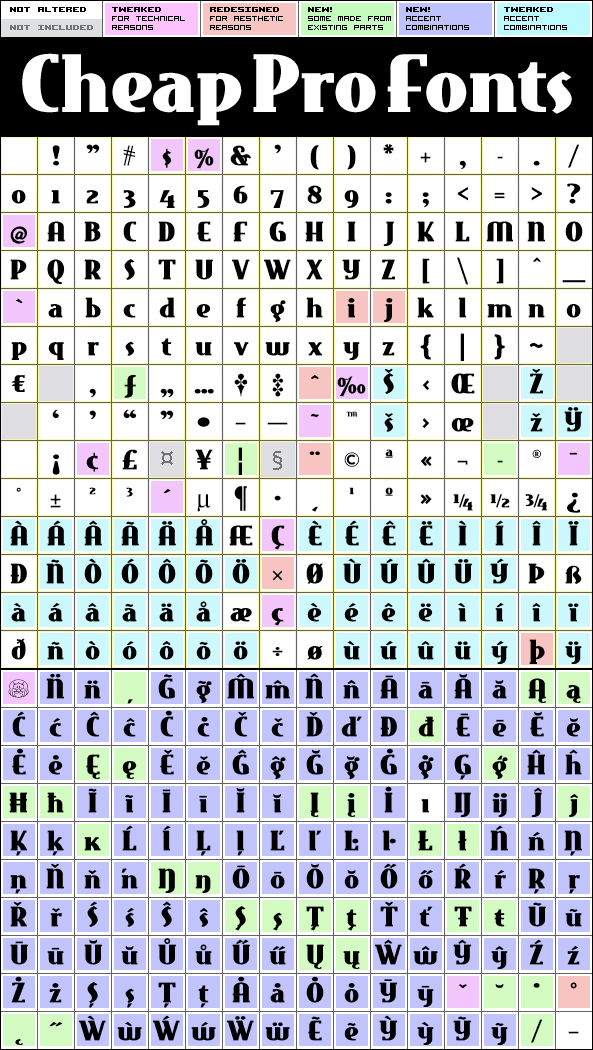
East Market NF Pro
East Market NF Pro by Nick Curtis
Highlights:
375 glyphs!
(218 in original)
782 class kernpairs
= 14668 kerning pairs
(1510 in original)
Description:
Another stylish retro script from Nick Curtis. After a general cleanup and the usual character extension this font is now ready for international use :)
Nick Curtis says: "Greg Thompson’s classic font Bodega has been a favorite of mine ever since it came on the scene in the early 90s, both in its sans and serif versions. Here’s a different take on the OldStyle version, fattened up and ready to add its quirky charm to your next project."
East Market NF Pro is a professionally reworked font that contains an extended character set for setting text in 65 languages requiring more than the basic A-Z!